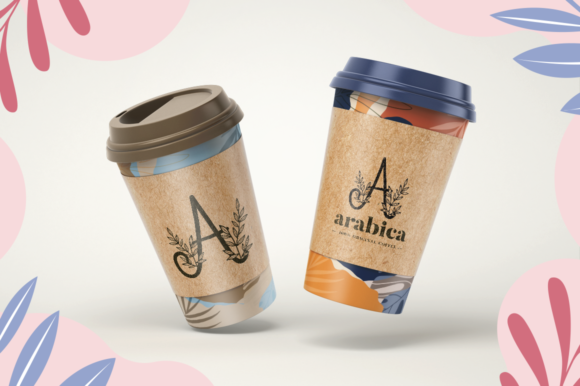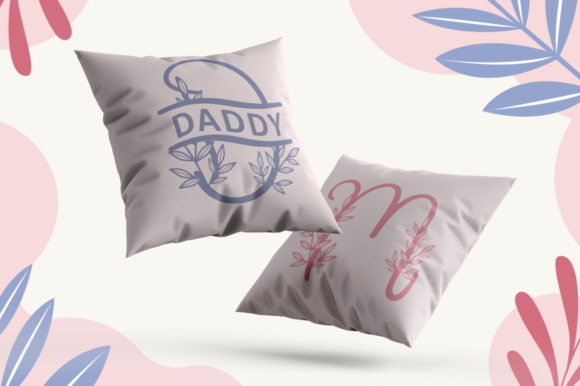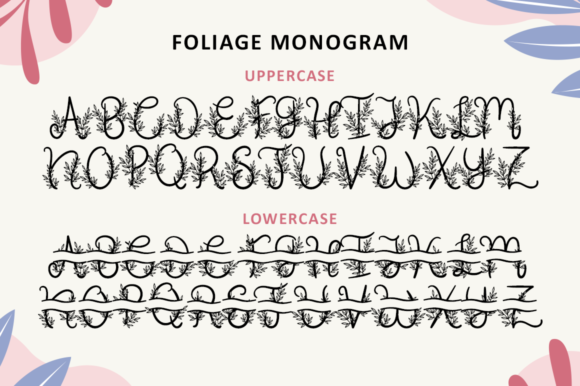
Foliage Monogram Font: Elevate Your Spring Crafting Projects with Elegance
Are you a designer or crafter looking for a unique and elegant font to take your spring projects to the next level? Look no further than the Foliage Monogram Font. This stunning display font simplifies elegance into one truly outstanding design, featuring original leaves-themed characters that will add a touch of sophistication to any project.
What is Foliage Monogram Font?
Foliage Monogram Font is a specially designed font that combines the beauty of nature with the elegance of monogramming. Each character in this font is carefully crafted to resemble leaves, bringing a fresh and vibrant feel to your designs. Whether you’re working on a spring-themed craft project, a branding campaign, or simply want to add a personal touch to your digital creations, Foliage Monogram Font is the perfect choice.
Key Features of Foliage Monogram Font
- Unique Leaf-Themed Characters: Each character in the Foliage Monogram Font is designed to resemble a leaf, giving your projects a natural and fresh look.
- Elegant and Sophisticated: The font’s elegant design makes it perfect for high-end branding, wedding stationery, and other special projects.
- Versatile: Foliage Monogram Font can be used for a wide range of projects, from digital designs to print materials.
- Wedding Stationery: Add a touch of elegance to your wedding stationery, including invitations, save-the-date cards, and thank-you notes.
- Spring Crafting: Use Foliage Monogram Font to create beautiful spring-themed crafts, such as garden markers, plant tags, and Easter decorations.
- Branding: Incorporate Foliage Monogram Font into your branding campaign to add a touch of sophistication and elegance.
- Digital Designs: Use Foliage Monogram Font to create stunning digital designs, including social media graphics, blog headers, and email newsletters.
Foliage Monogram Font is a truly unique and elegant display font that will take your spring crafting projects to the next level. With its original leaves-themed characters and sophisticated design, this font is perfect for designers and crafters looking to add a touch of elegance to their work. Whether you’re working on a wedding stationery project, a branding campaign, or simply want to create beautiful digital designs, Foliage Monogram Font is the perfect choice.